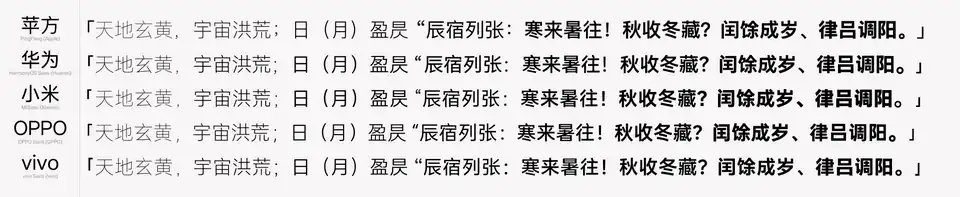
List of CJK fonts
This is a list of notable CJK fonts (computer fonts with a large range of Chinese/Japanese/Korean characters). These fonts are primarily sorted by their typeface, the main classes being "with serif", "without serif" and "script". This article name the two first classes Ming and sans-serif (gothic) while further divide the "script" into several Chinese script styles.
The fonts are then sorted by their target writing system:[Note 1]
- Chinese: Chinese character. (May also support bopomofo.)
This can be subdivided into the following classification:- Simplified Chinese
- Traditional Chinese (General, using printing standard or jiu zixing, Chinese: 舊字形)
- Traditional Chinese (Taiwan, using education standard: Standard Form of National Characters, Chinese: 國字標準字體)
- Traditional Chinese (Hong Kong, using education standard: List of Graphemes of Commonly-Used Chinese Characters, Chinese: 常用字字形表)
- The following localization table shortens Simplified Chinese to SC and Traditional Chinese to TC.
- Japanese: kanji, hiragana and katakana
- Korean: Hangul, hanja, etc.
- Vietnamese: for the Nôm script formerly used
- Zhuang: for Sawndip
- Pan-Unicode: intended to globally support the majority of Unicode's characters, and not specifically designed for one or a few writing systems (note that Pan-Unicode font ≠ Unicode font[Note 2])
- Pan-CJK: intended to support the majority of Chinese/Japanese/Korean characters, and not specifically designed for any one of these writing systems
Ming (Song)
Pan-Unicode/Pan-CJK
| English name | CJK name | Localisation | Editor/Creator | Licensing | Format | Comments |
|---|---|---|---|---|---|---|
| Bitstream Cyberbit | Pan-Unicode | |||||
| Hanazono Mincho[1] | 花園明朝 | Pan-CJK | [F] Hanazono Font License or SIL Open Font License | ttf | HanaMinA (Japanese 花園明朝A) for BMP and HanaMinB (Japanese 花園明朝B) for SIP – covers all CJK, CJK Compatibility, CJK-Ext.A, CJK-Ext.B, CJK-Ext.C, CJK-Ext.D, CJK-Ext.E, and CJK-Ext.F. This font has issues in LaTeX if rotated with \setCJKmainfont[Vertical=RotatedGlyphs]{HANAMINA.TTF, as required for traditional writing: some characters aren't displayed after rotating, while they work without rotation.
| Sazanami-Hanazono Mincho[2] | Pan-CJK | [F] | ttf | Full CJK and Latin-1 truetype font resulting from merge of Sazanami Mincho and Hanazono fonts. | ||
| Pan-CJK | Adobe and Google | [F] SIL Open Font License | SIL Open Font License v.1.1 in April 2017.[3] | |||
| TH-Tshyn | 天珩全字库 | Pan-Unicode | 天珩 | TH-Tshyn-P0, TH-Tshyn-P1, TH-Tshyn-P2 and TH-Tshyn-P16. Version 4.1.0 offers complete coverage of all Unicode CJK characters up to CJK Unified Ideographs Extension I introduced in 2023 with Unicode version 15.1.[4] | ||
| Jigmo | 字雲 | Pan-CJK | [F] CC0 1.0 Universal | Jigmo, Jigmo2, and Jigmo3. Version 20230816 offers complete coverage of all Unicode CJK characters up to CJK Unified Ideographs Extension I introduced in 2023 with Unicode version 15.1.[5] |
Chinese
| English name | CJK name | Localisation | Editor/Creator | Licensing | Format | Comments |
|---|---|---|---|---|---|---|
| BabelStone Han[6] | SC | Andrew West | [F] 1999 Arphic Public License | Based on Arphic PL Fonts, extended partly to CJK Unified Ideographs Extension I. | ||
| DLCMingMedium DLCMingBold |
華康中明體, 華康粗明體 |
TC | Microsoft Windows | Font family from which Windows 3.0's default Traditional Chinese font 'Ming Light' is derived. | ||
| MingLiU | 細明體 | TC (Taiwan) | Microsoft Windows | mingliu.ttc
|
Default interface typeface for Windows 3.0 to Windows XP, derived from DynaLab's DLCMing typeface. mingliu.ttc) was distributed with the Traditional Chinese version of Windows 95 to Windows 98, all regional versions of Windows 2000 to Windows 8.1, Traditional Chinese version of Windows 10, PMingLiU Update Pack (新細明體更新套件), Traditional Chinese Font Pack for Internet Explorer 3, Microsoft Global IME 5.02 (Traditional Chinese), Office XP Tool: Traditional Chinese Language Pack, Traditional Chinese supplemental fonts for Windows 10.
| |
| PMingLiU | 新細明體 | TC (Taiwan) | Microsoft Windows 95+ | Distributed with Traditional Chinese version of Windows 95, all regional versions of Windows 2000 to Windows 8.1, and the Traditional Chinese version of Windows 10. The Latin characters in this font is proportional. | ||
| MingLiU_HKSCS, MingLiU_HKSCS-ExtB |
細明體_HKSCS, 細明體_HKSCS-ExtB |
TC (Hong Kong) | Windows Vista | mingliub.ttc
|
MingLiU-ExtB (mingliub.ttc,細明體-ExtB), PMingLiU-ExtB (新細明體-ExtB) – distributed with PMingLiU Update Pack (新細明體更新套件), Windows Vista.
| |
| LiSong Pro Light | 儷宋 Pro | TC (Hong Kong) | Mac OS 9 and Mac OS X 10.3–10.4. | |||
| Apple LiSung Light | 蘋果儷細宋 | TC (Hong Kong) | Mac OS 9 and Mac OS X 10.2–10.4. | |||